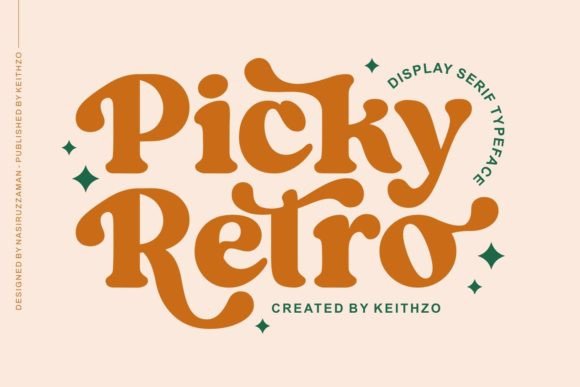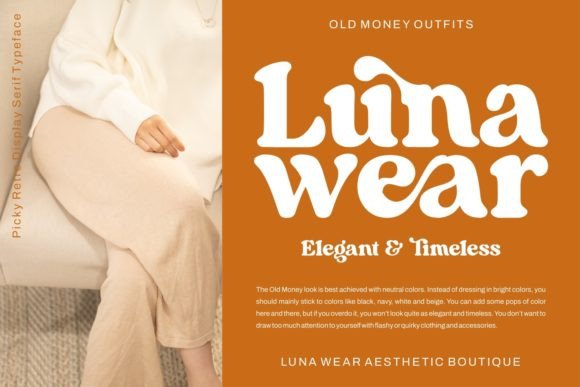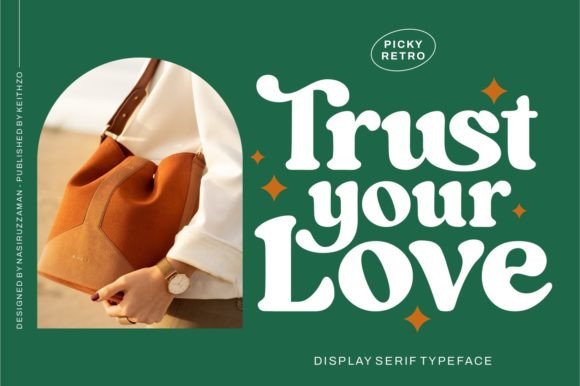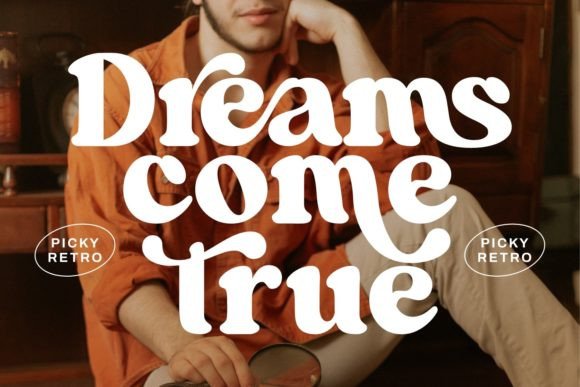
Picky Retro Font
About the Picky Retro Font
The wait is over! The incredible Picky Retro Font is now available for your design toolkit. Picky Retro font is a bold and charismatic display serif typeface that brings a touch of vintage flair to your designs. Its strong and distinctive letterforms evoke a sense of classic elegance while adding a hint of playful nostalgia. Whether you’re designing logos, headlines, or invitations, Picky Retro adds a timeless charm that’s sure to captivate and stand out.
Picky Retro excels in headline applications, logos, and short-form text within posters or invitations. Its strong character makes it ideal for projects requiring a bold visual statement, conveying a sense of retro-inspired sophistication. Avoid using it for body text or lengthy paragraphs; its weighty forms are less legible at smaller sizes.
Pairing Picky Retro with a clean sans-serif like Futura or a slightly more playful geometric sans-serif such as Bebas Neue creates a balanced contrast. For a more vintage feel, consider a complementary serif like Garamond, but ensure sufficient size and contrast for readability.
The font’s overall personality is confident and playful, yet refined. It suits brands that wish to communicate a sense of heritage with a modern twist, perhaps in the fashion, food & beverage, or entertainment industries.
Picky Retro Font Usage Examples
Picky Retro Font Example